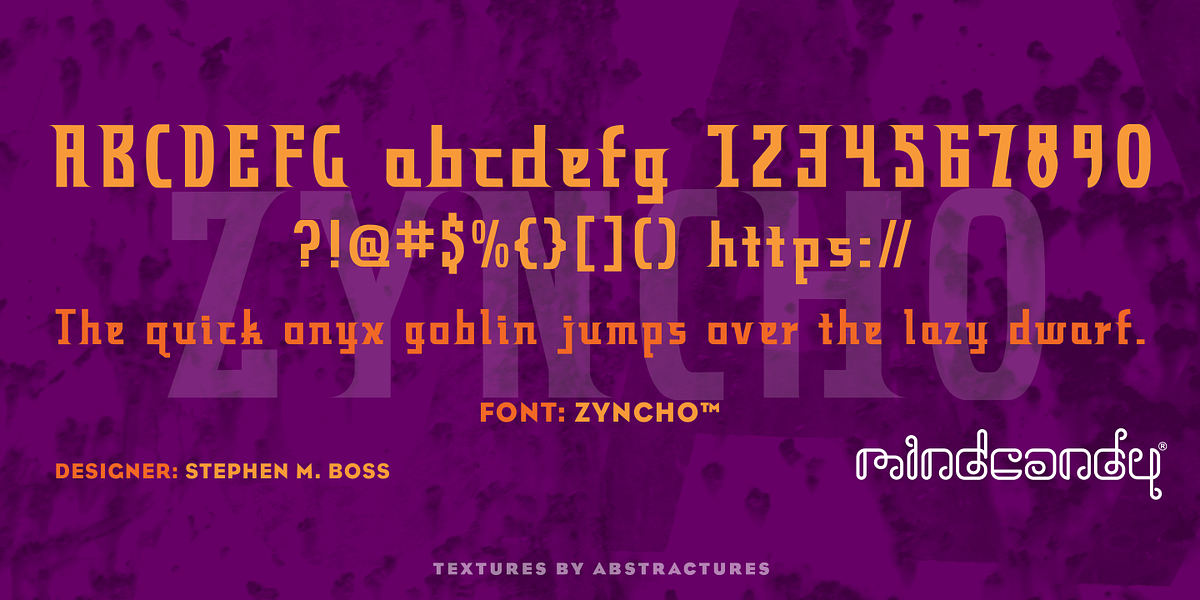
Zyncho™
Designed by Stephen M. Boss in 1996, this square serif typeface presents a unique and playful take on the classic serif style. Its distinctive design makes it suitable for a range of display applications, including branding, editorial projects, and eye-catching headlines.